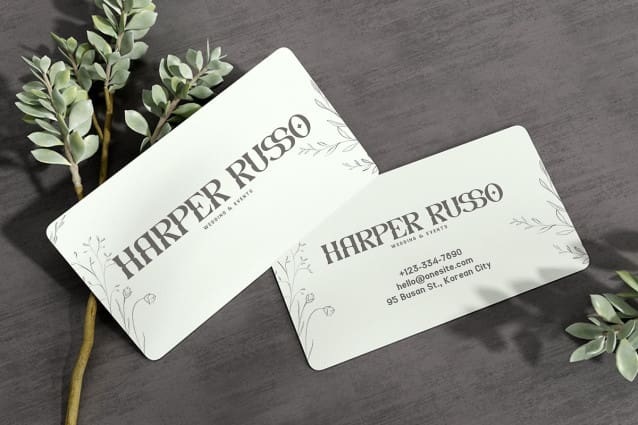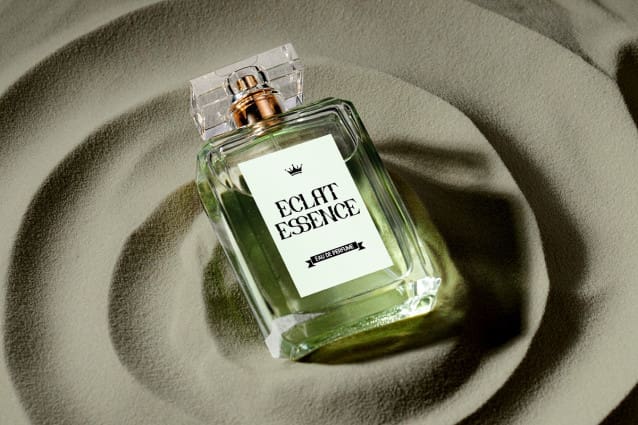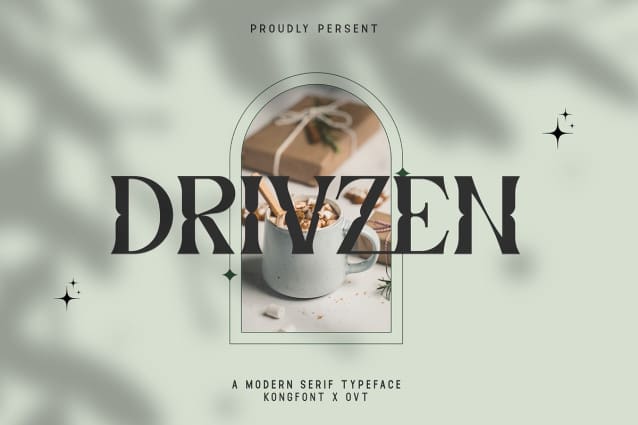
Drivzen Font
Drivzen Font, a modern serif typeface crafted to navigate your typography through contemporary sophistication. With its clean lines and refined forms, Drivzen embodies versatility and style, making it the perfect choice for a wide range of design projects.
Designed with meticulous attention to detail, Drivzen Font strikes the perfect balance between classic serifs and modern aesthetics. Whether you’re creating editorial layouts, branding materials, or digital designs, this font commands attention and leaves a lasting impression.
Featuring multiple weights and styles, Drivzen Font offers flexibility and adaptability for any design endeavor. Its extensive character set includes alternates, ligatures, and swashes, allowing you to customize your typography with ease and precision.
Navigate your designs with confidence and elegance using the contemporary sophistication of Drivzen.